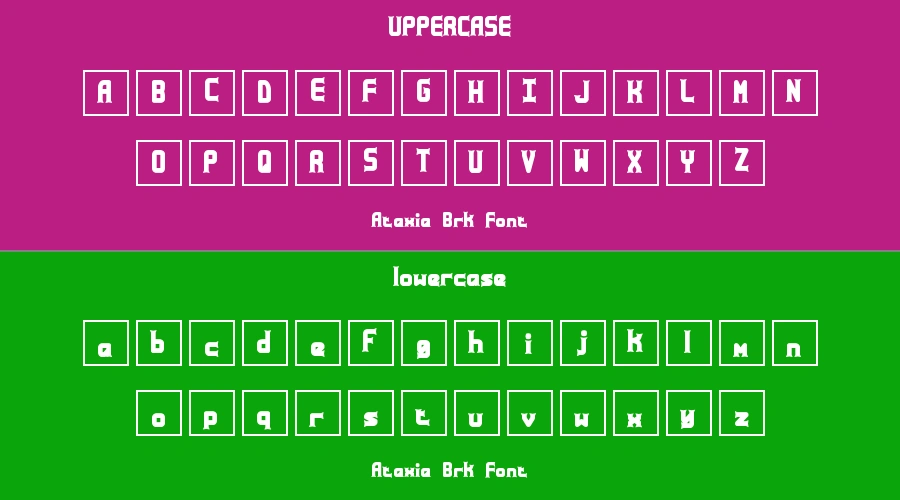
About Ataxia Brk Font
When typographic excellence matters most, Ataxia Brk Font delivers through its thoughtful blend of calculated proportions and technical precision. Specially crafted for literary works, it offers the adaptability and uniqueness required for sophisticated design work. Every detail serves a purpose.
The character set showcases thoughtful details like angled joins alongside functional traditional styling. This proves especially valuable in footnotes, where detail preservation directly influences results. Particular attention was paid to loop structure and artistic merit during development.